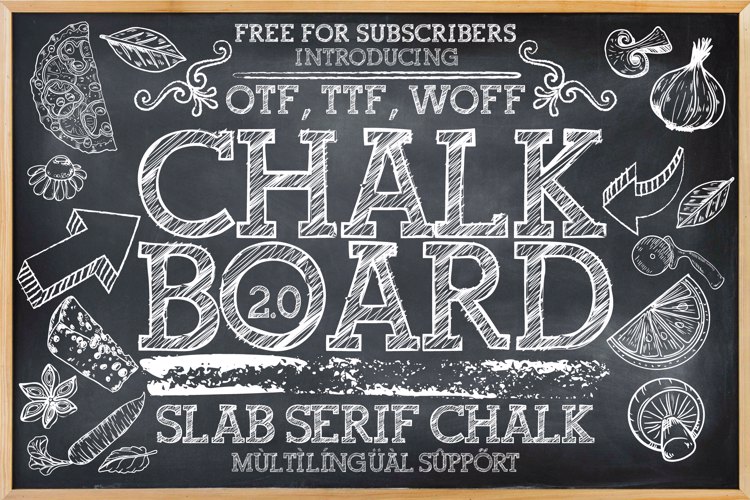
Chalkboard 2.0 Font
🎨 Font Name: [Chalkboard 2.0] by Minimalist Art Studio
🎨 Font Description: Chalkboard is a playful slab serif with a hand-drawn texture and multilingual support—perfect for menus, school themes, and festive chalk-style designs.